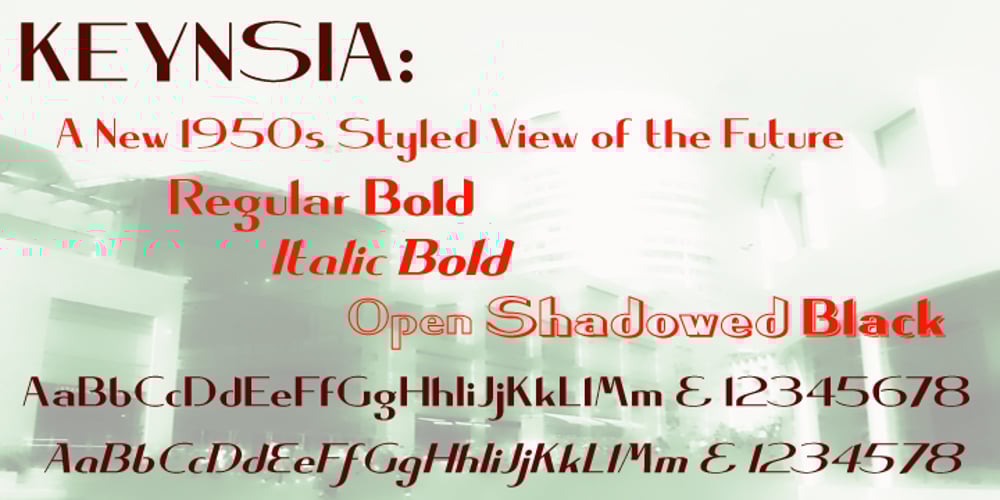
Keynsia Font Family was designed by Paul James Lloyd and published by Greater Albion Typefounders. Keynsia contains 7 styles and family package options. The Keynsia family revives the spirit of the 1950s. Its simple and elegant lines make for an eye-catching set of display faces. A range of different styles are on offer, all with an extensive character set.